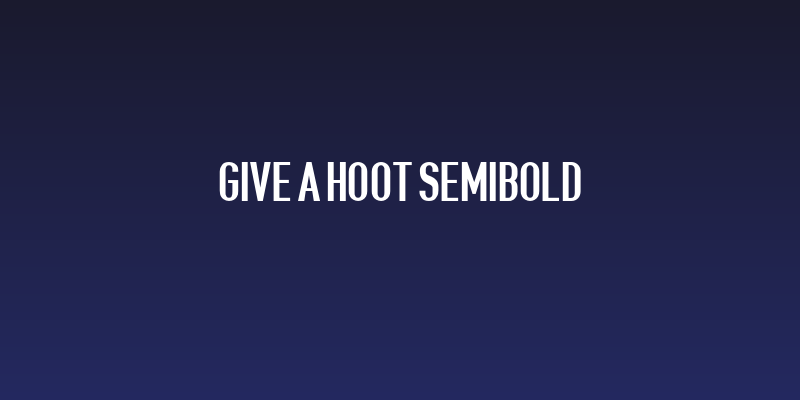
Give A Hoot Semibold Font
Give A Hoot Semibold Description
This font features a bold and assertive design with a modern aesthetic. The characters are tall and narrow, giving it a condensed appearance. The uppercase letters are particularly striking, with clean lines and a strong presence. The lowercase letters maintain the same boldness, ensuring consistency throughout the typeface. The numerals are clear and easy to read, matching the overall style of the alphabet. Special characters are included, providing versatility for various uses. The font's design is suitable for making a strong visual impact, ideal for headlines and attention-grabbing text.
| Proposed Projects | Ideal for headlines, posters, branding, and advertising where a strong visual impact is needed. |